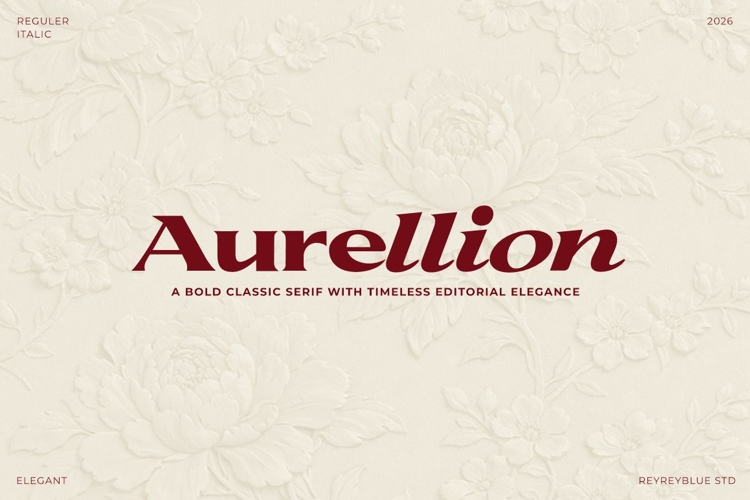
Aurellion - Elegant Serif Font
Aurellion is a refined serif typeface designed for modern luxury branding, fashion identities, and editorial design. Featuring bold yet elegant letterforms with confident contrast and timeless proportions, Aurellion delivers a sophisticated visual voice that feels both classic and contemporary.
Crafted to stand out in logos, headlines, magazine layouts, packaging, and high-end branding projects, Aurellion balances strong presence with graceful detail. Its sharp serifs, clean curves, and carefully tuned spacing ensure excellent readability while maintaining a premium, editorial aesthetic. Perfect for fashion brands, beauty products, lifestyle magazines, and elegant web design, Aurellion elevates typography into a statement of refinement and authority.